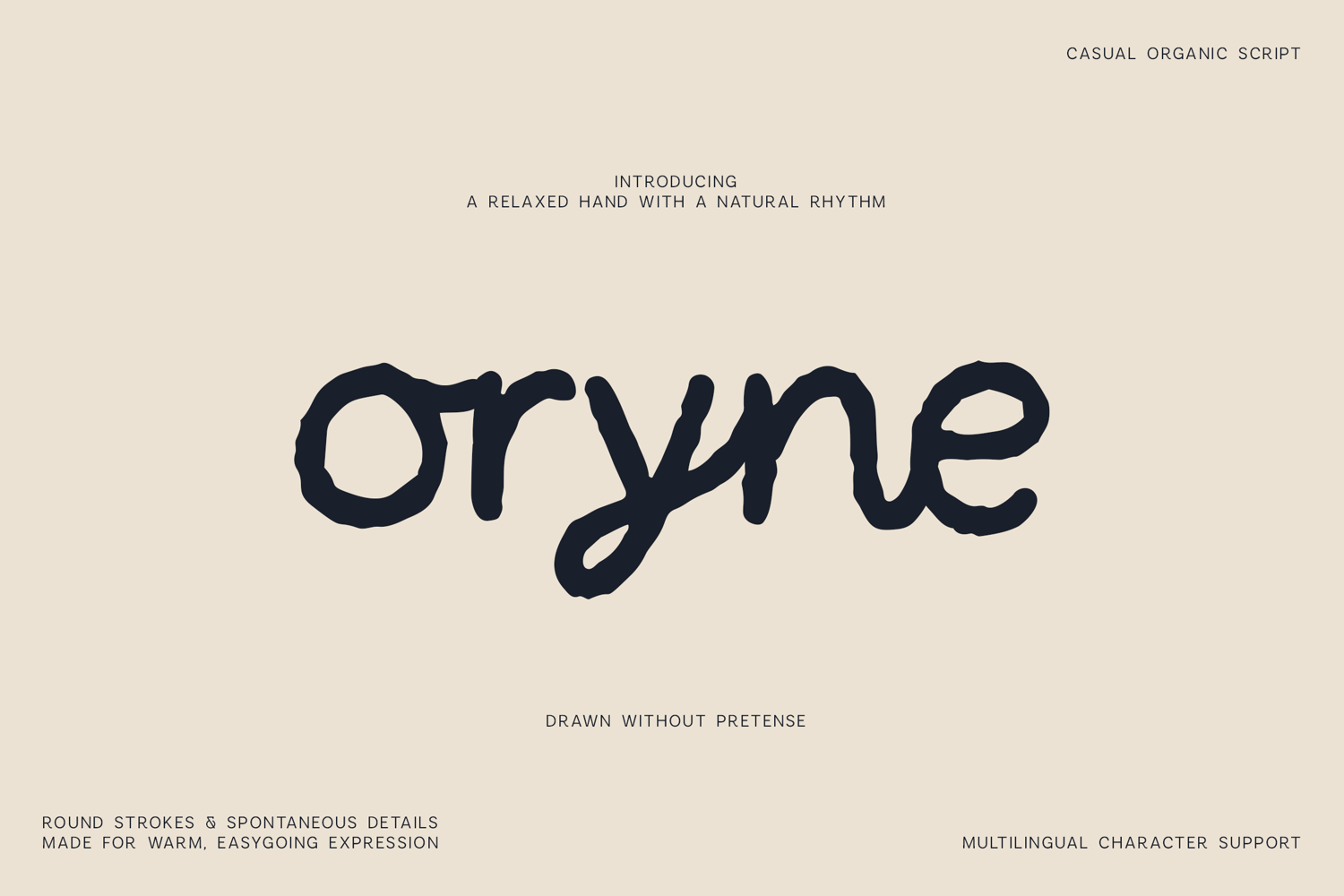
Oryne Organic Handwritten Font
Bring an effortless handmade character to your designs with Oryne, a casual organic handwritten font created with rounded strokes, spontaneous details, and a naturally relaxed rhythm.
Oryne feels warm, expressive, and approachable while remaining clear enough for a wide variety of creative projects. Its imperfect shapes give typography the charm of real handwriting and make every composition feel less rigid and more human.
It works beautifully for branding, packaging, restaurant and café graphics, product labels, posters, book covers, apparel, merchandise, invitations, social media graphics, editorial projects, and creative identities.
Oryne includes uppercase and lowercase letters, numerals, punctuation, symbols, and extended multilingual character support.